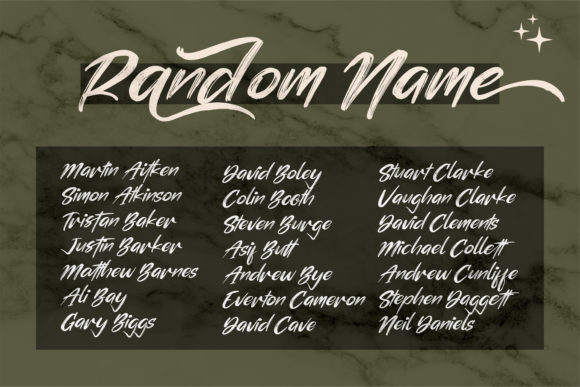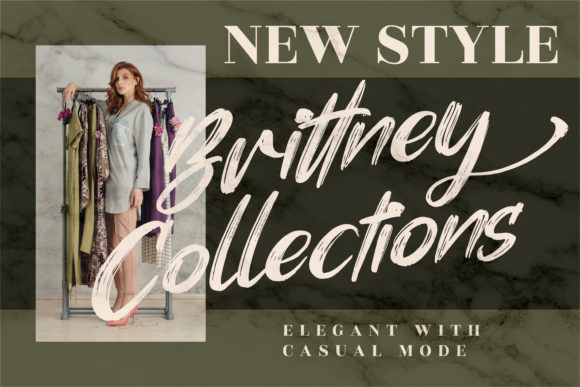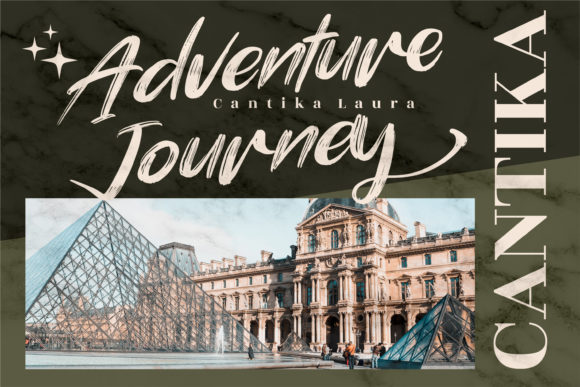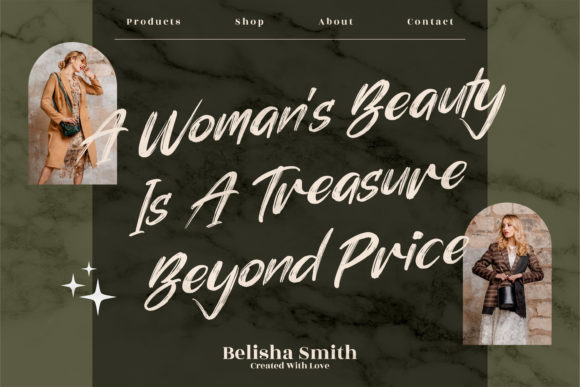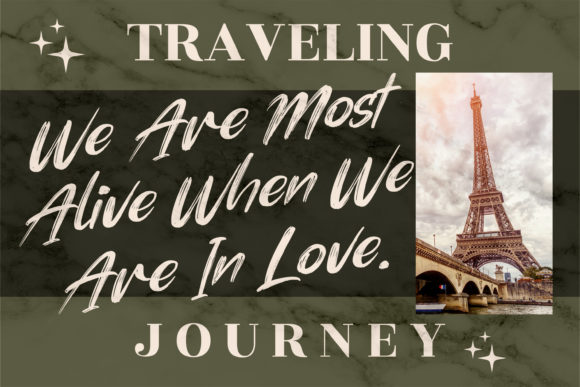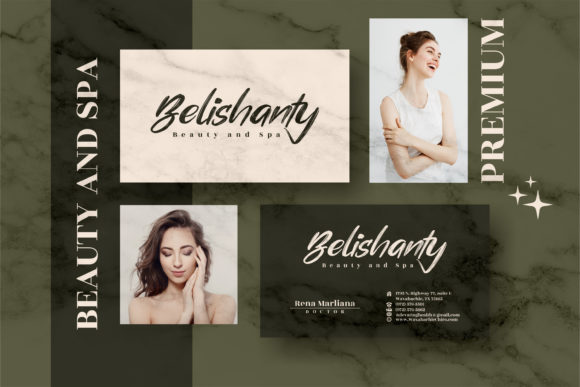
Introduction to Simphony Brushe Font
As designers, we’ve all been there – staring at a blank page, trying to conjure up the perfect words to bring our creative vision to life. But what if you had the perfect tool to elevate your design to the next level? Enter the Simphony Brushe Font, a stunning script font that exudes sophistication and elegance.
With its high-quality design and PUA encoding, this font is a game-changer for any creative project. Whether you’re working on a logo, a brochure, or a social media campaign, the Simphony Brushe Font is the perfect design resource to give your project a touch of class. And the best part? It’s available for free download, making it an accessible and valuable addition to any designer’s toolkit.
Imagine being able to create a design with a transparent background, or adding a pop of personality with a custom ligature – the Simphony Brushe Font makes it all possible. In this article, we’ll dive into the world of this amazing font and explore its features, benefits, and uses.
Key Features of Simphony Brushe Font
- High-quality design resource ideal for creative projects, including digital art and graphic design.
- Unique brush font style with a transparent background, perfect for adding a creative touch to your designs.
- Available in a single size, making it easy to use in various design projects.
- Resolution-independent, ensuring that the font looks great at any size or resolution.
- Perfect for designers and artists looking for a high-quality, unique font to enhance their creative project.
Honest Review: Simphony Brushe Font
As a designer, I’m always on the lookout for high-quality design resources that can elevate my creative projects. Recently, I came across the Simphony Brushe Font, which caught my attention with its unique aesthetic and transparent background.
What works well with the Simphony Brushe Font is its versatility. I can use it for a variety of design projects, from digital art to print materials. The font’s clean and modern design makes it a great addition to any creative project.
- ✨ Unique aesthetic: The Simphony Brushe Font has a distinctive look that sets it apart from other fonts.
- ✨ Versatile: I can use it for a range of design projects, from digital art to print materials.
However, there are some limitations to consider. The font is a bit limited in terms of its character set, which may not be suitable for projects that require a wide range of characters.
⚠️ Limited character set: The font may not be suitable for projects that require a wide range of characters.
Overall, I’m impressed with the Simphony Brushe Font and its potential to elevate my creative projects. While it may have some limitations, its unique aesthetic and versatility make it a valuable resource for designers.
Common Use Cases for Simphony Brushe Font
The Simphony Brushe Font is ideal for a variety of creative projects, including graphic design, branding, and digital marketing. Its high-quality design and transparent background make it an excellent choice for overlaying on images or backgrounds.
Q: Does the Simphony Brushe Font have a transparent background?
Yes, the Simphony Brushe Font has a transparent background, making it perfect for use on top of images or other design elements. This feature allows you to create a seamless and professional-looking design.